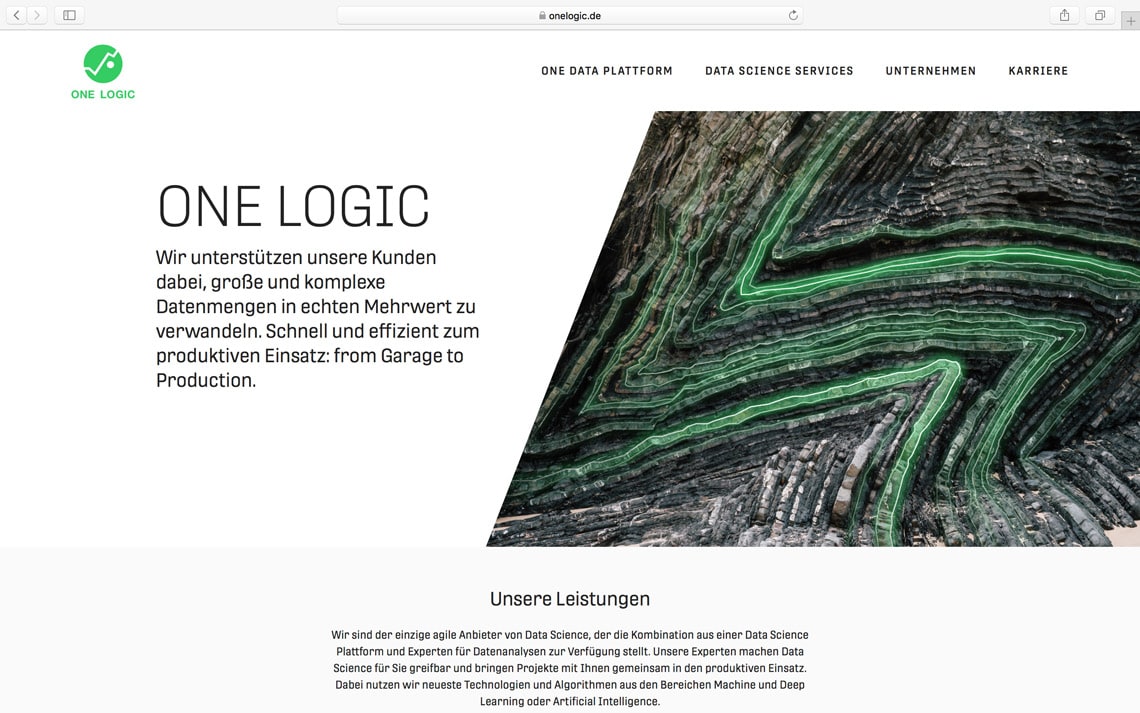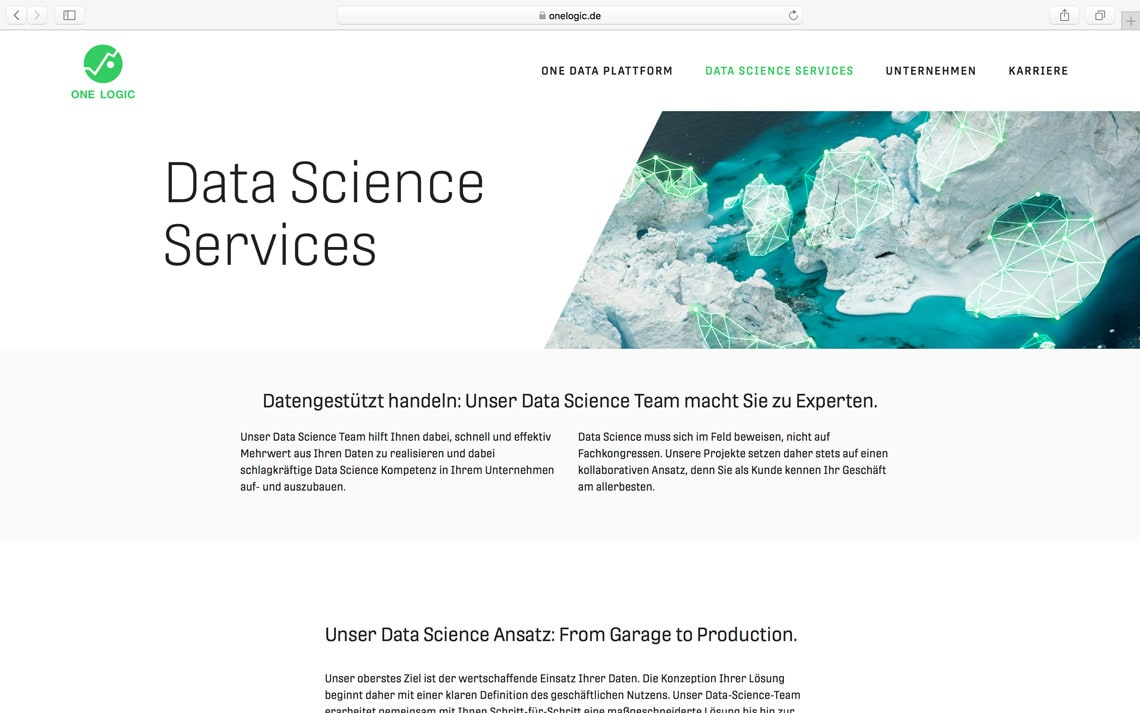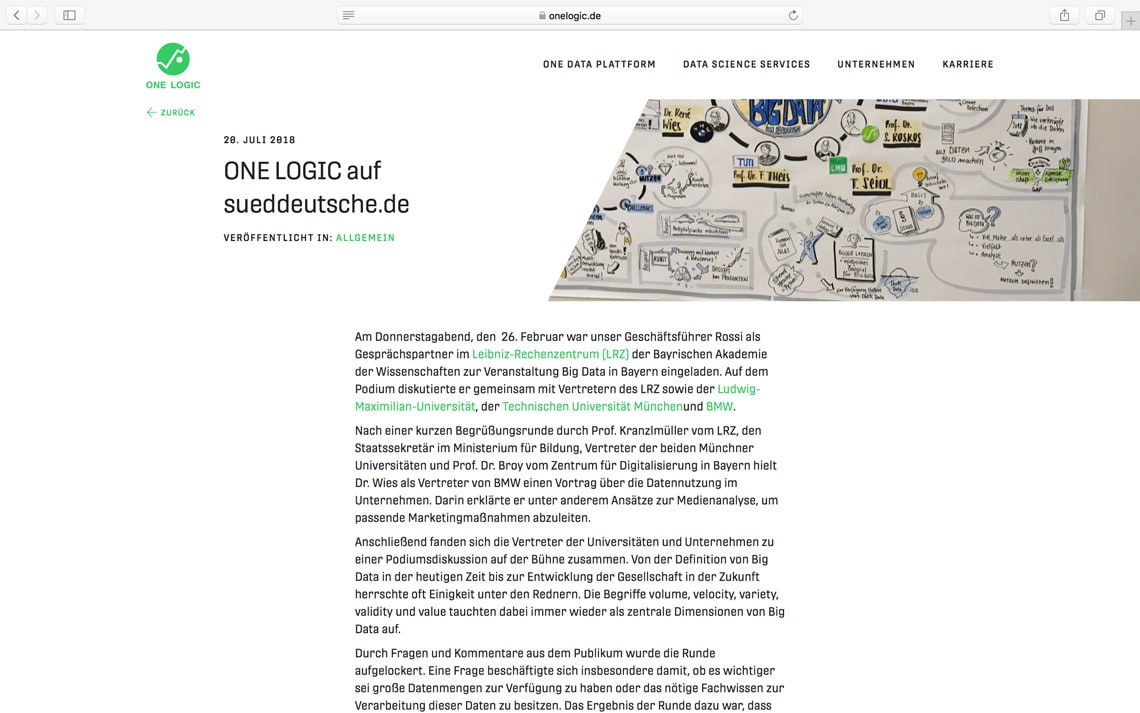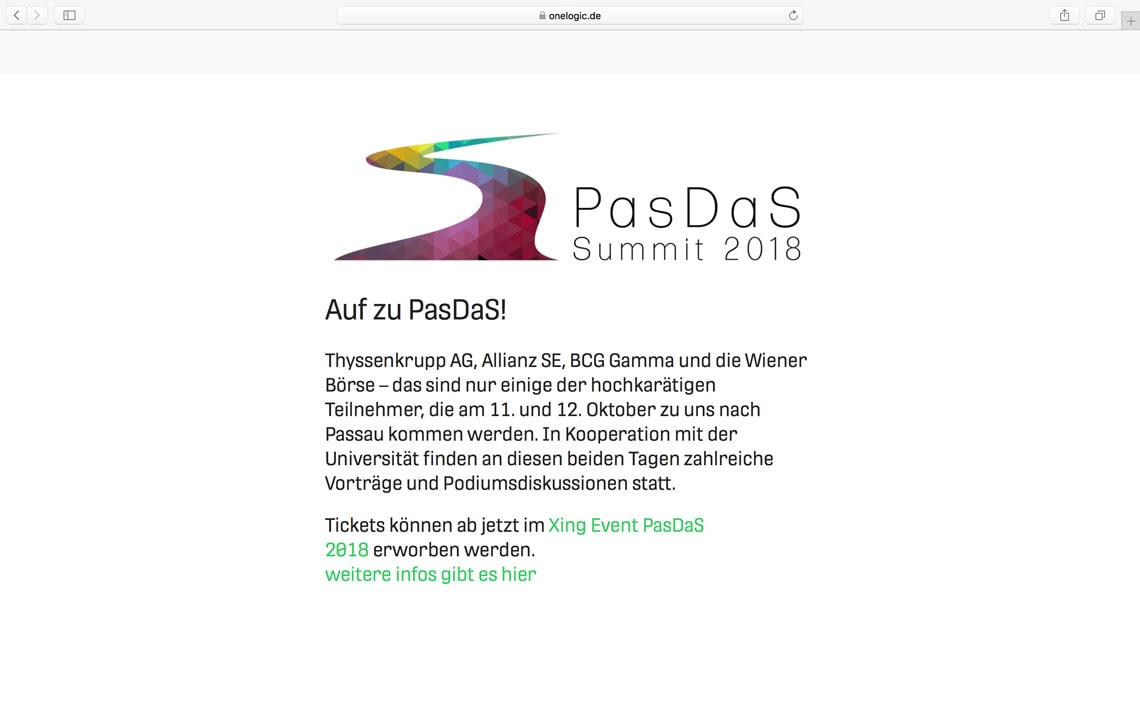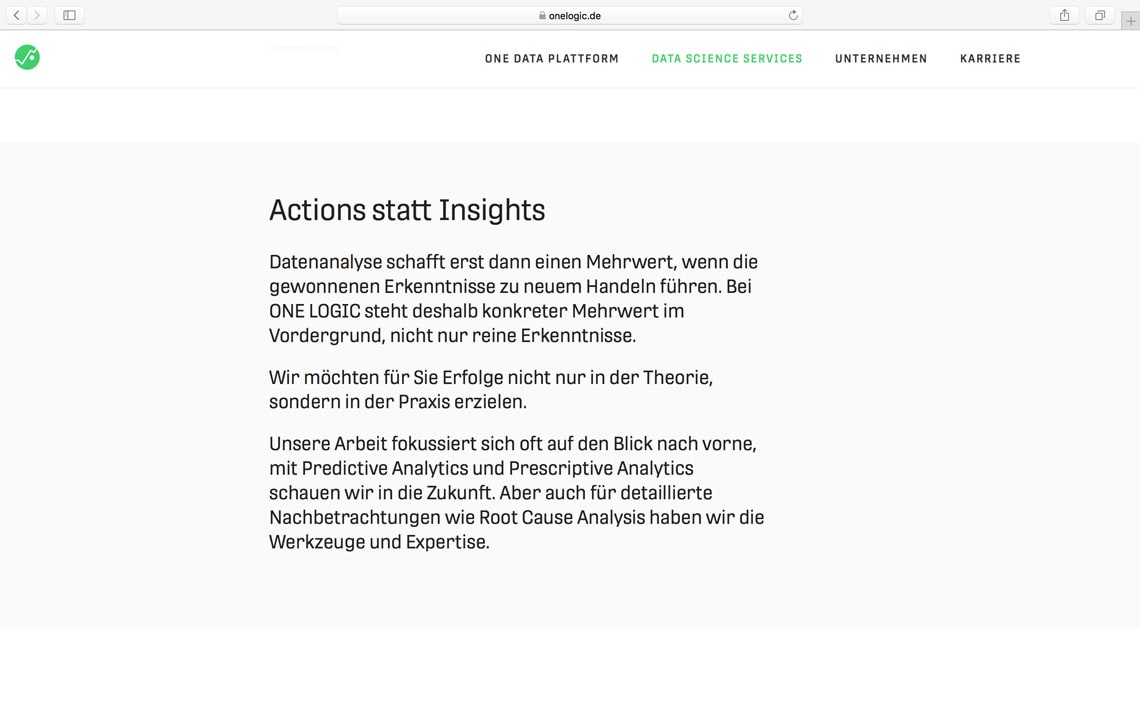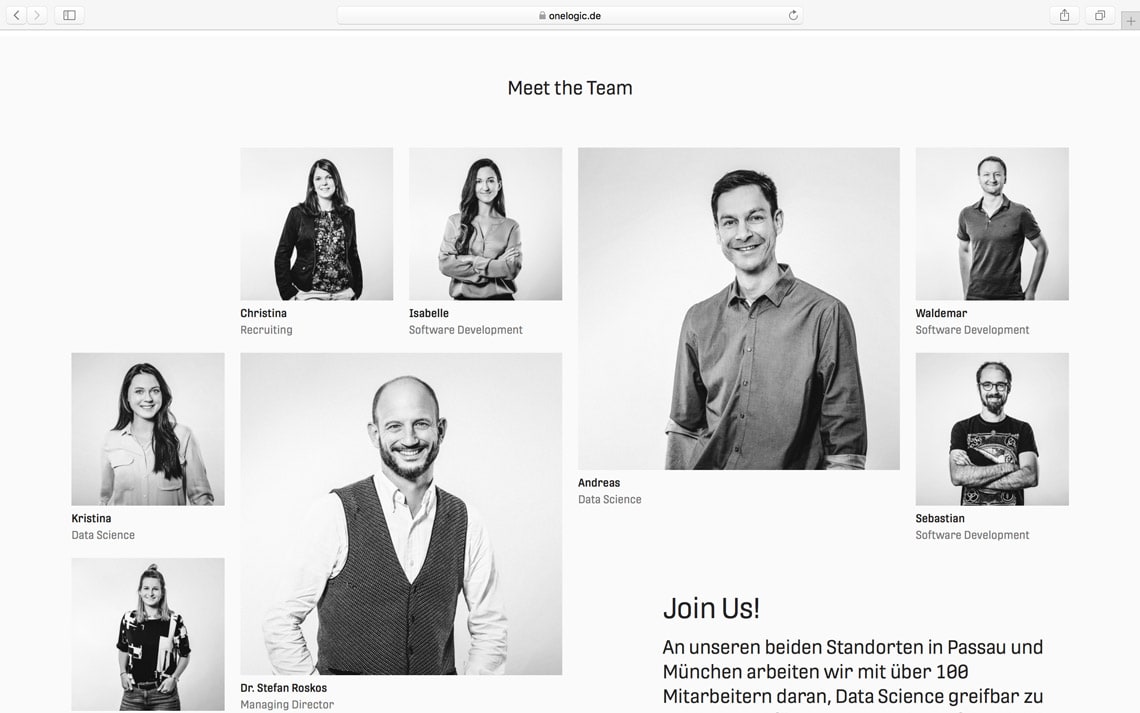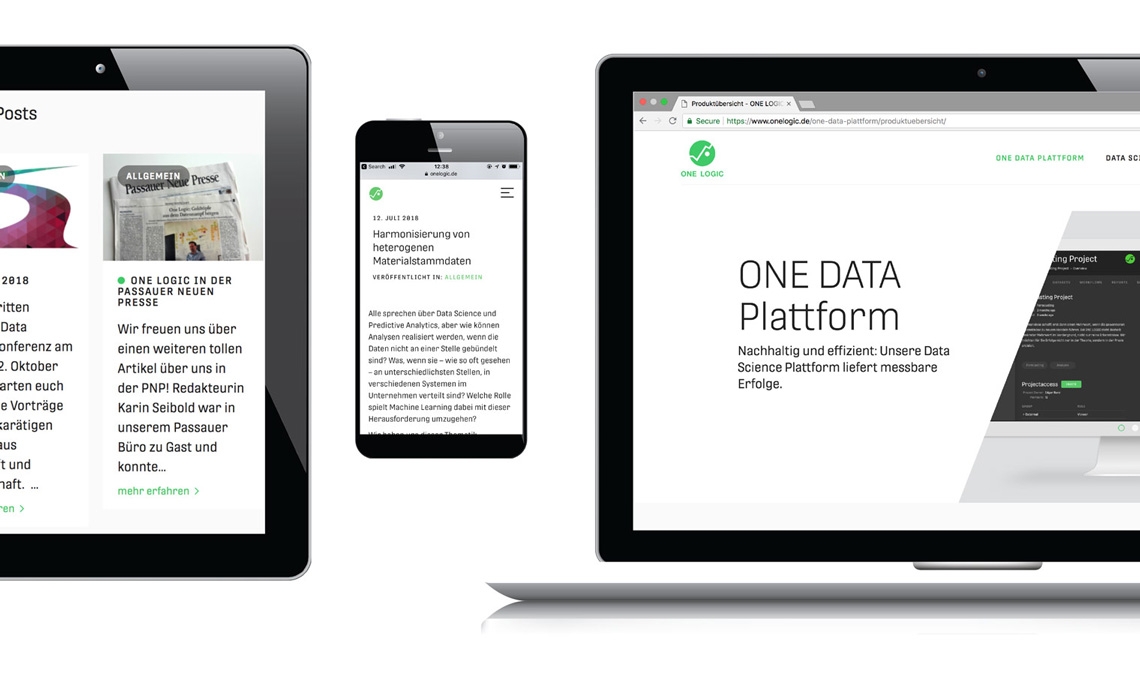
Protipo in ONE LOGIC
Protipo, one of our latest sans serif type families, is extensively used in German-based company ONE LOGIC’s recently redesigned website.
ONE LOGIC is a tech company founded in 2013 and specialising in data science and artificial intelligence, combining expert knowledge and guidance with software services. Besides our Protipo showcase minisite, ONE LOGIC is the first major use we’ve heard of to employ Protipo and Protipo Narrow across the entire site, both in long texts, such as blog entries, and short menu and title text.